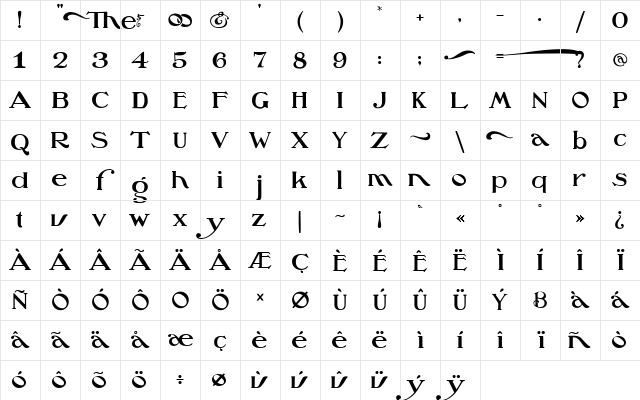
Complete Oz'sWizard Scarecrow glyph index. Displaying only characters natively supported by Oz'sWizard Scarecrow font.
Oz'sWizard is a composed and adaptable typeface that performs quietly and consistently across a wide range of design contexts.